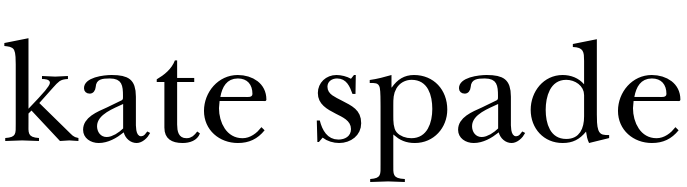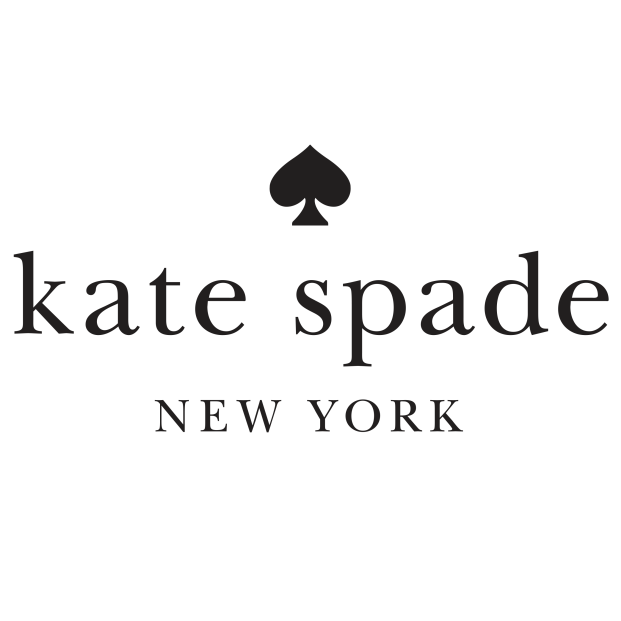
Kate Spade Font
ApparelKate Spade is a fashion brand founded by Kate Spade in 1993. It is known for its stylish and sophisticated handbags, accessories, and clothing. In 2017, the brand was acquired by Coach Inc.
Kate Spade products display the brand name in all lowercase and the font used for the brand's lettering is ITC New Baskerville Roman. John Quaranda created New Baskerville from the works of Birmingham's literary master and printer John Baskerville (1706-1775).